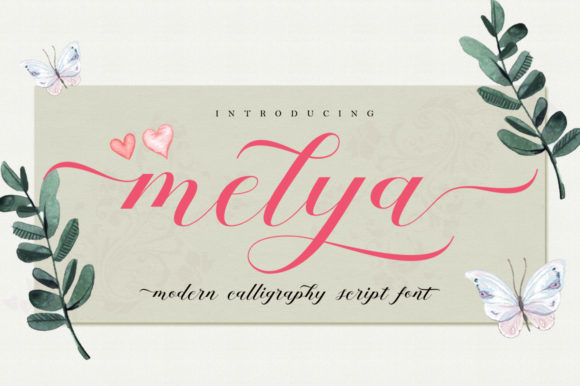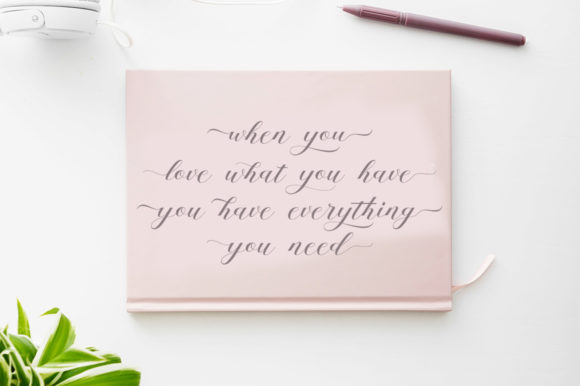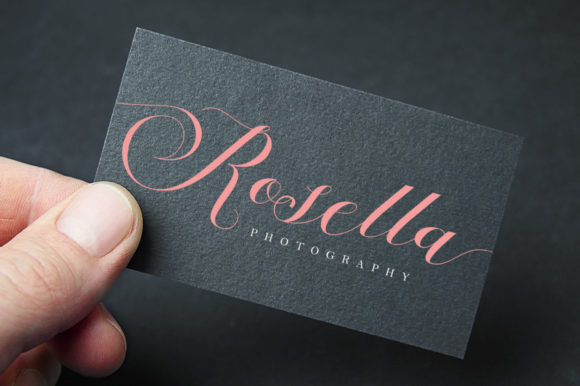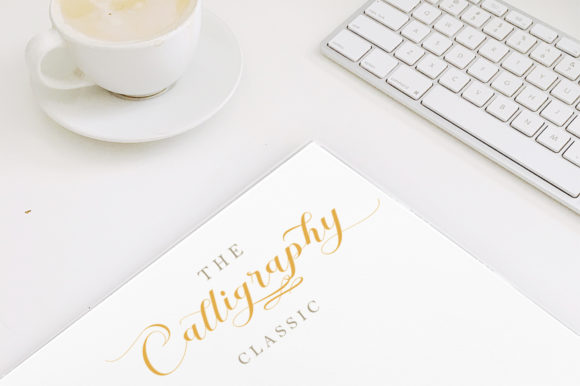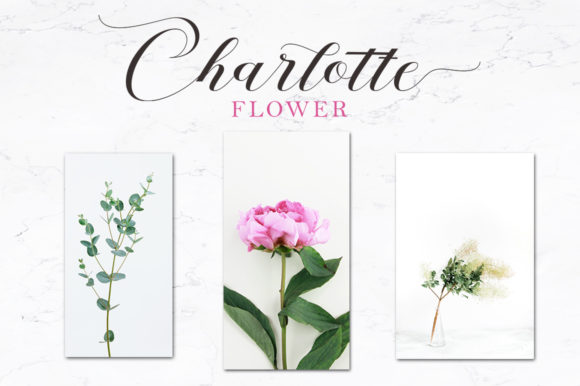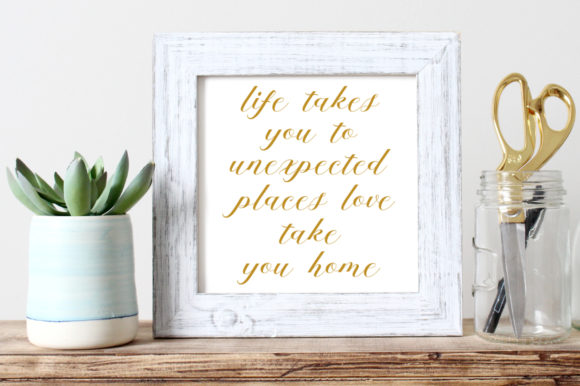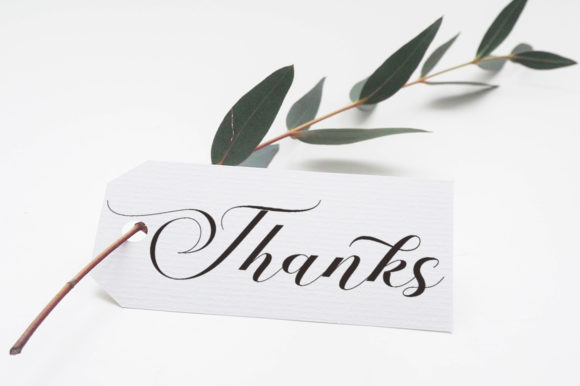
Melya Font
About Melya Font
Melya Script is a cute, yet elegant handwritten font with an undeniable charm. Use it for any design project that needs a light and authentic touch.